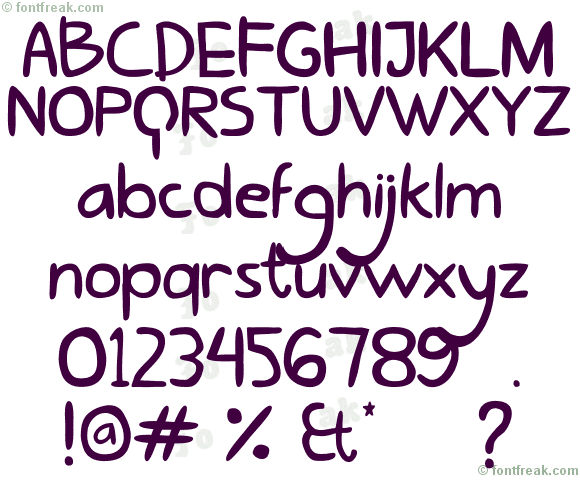
Lovely Eunike Hans Normal
Lovely Eunike Hans Normal is a charming handwritten font designed by Adien Gunarta, falling into the decorative category. This font exudes a playful yet elegant vibe, making it perfect for a variety of creative projects. The stroke weight is consistent and moderate, providing a friendly and approachable feel. Its slightly irregular shapes and organic curves contribute to a warm and inviting appearance, while the ample spacing between characters ensures readability.
This font is particularly well-suited for wedding invitations, where its whimsical nature can add a personal touch to the event. It also shines in children's book covers, capturing the imagination with its fun and lively style. Additionally, Lovely Eunike Hans Normal can enhance restaurant menus, where its unique flair may entice diners and create an inviting atmosphere. For graphic designers and content creators, this font is ideal for social media graphics, helping to convey a fun and engaging message.
What sets Lovely Eunike Hans Normal apart is its ability to blend elegance with a playful charm, making it versatile enough for both formal and casual uses. This font is not just a typeface; it's a tool for storytelling, allowing users to communicate their message with warmth and personality. If you're looking for a font that brings a delightful touch to your designs, consider the Lovely Eunike Hans Normal font free download for your next creative endeavor.